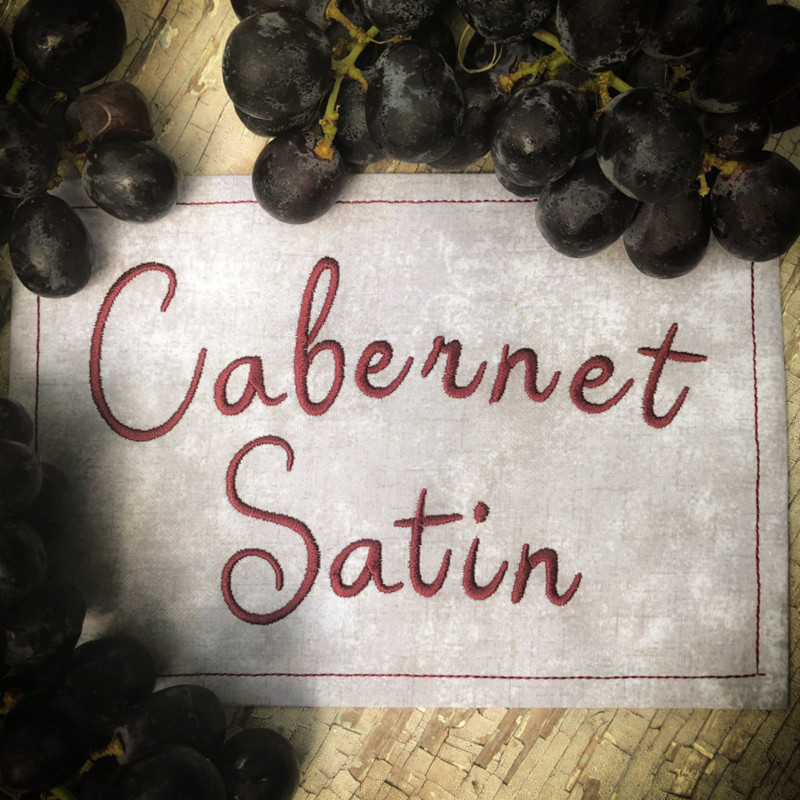
786 Cabernet Satin Font
786 Cabernet Satin Font comes in 0.75", 1", 1.5", 2", 2.5", 3", 3.5" & 4" heights based on the capital "A". Includes Uppercase letters, lowercase letters, numbers and 13 punctuation marks. All sizes are included in the download folder. Capital and lowercase height is varied throughout this non-uniform height font — please view the character chart in the images above.